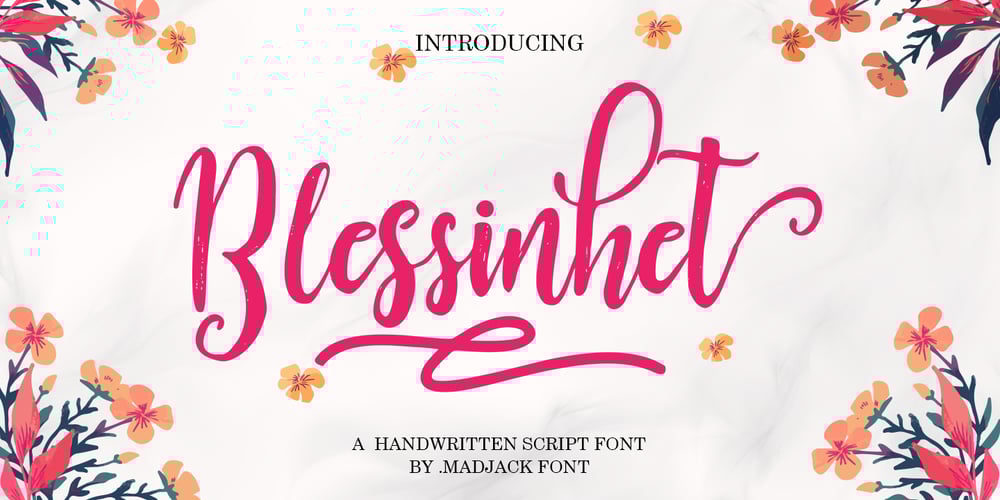
Blessinhet Script Font Family was designed by Zaki Muhammad and published by madjack.font. Blessinhet Script contains 2 styles and family package options. Blessinhet Script is a modern and clean calligraphy script, with elegant characters dancing along the baseline. It can be used for various purposes such as logos, wedding invitations, postal, t-shirts, letterhead, signage, labels, news, posters, badges and more.OpenType features with alternative styles, binders and multi-language support.To activate the OpenType Stylistic alternative, you need a program that supports OpenType features such as Adobe Illustrator CS, Adobe Indesign & CorelDraw X6-X7, Microsoft Word 2010 or newer versions.How to access all alternative characters, using Windows Character Map with Photoshop:https://www.youtube.com/watch?v=Go9vacoYmBwHow to access all alternative characters using Adobe Illustrator:http://youtu.be/iptSFA7feQ0There are additional ways to access alternatives / swashes, using Character Map (Windows), Nexus Fonts (Windows), Font Book (Mac) or software programs such as PopChar (for Windows and Mac).Need help? If you need help or advice, please contact me by email madjack.font@gmail.comThank you!